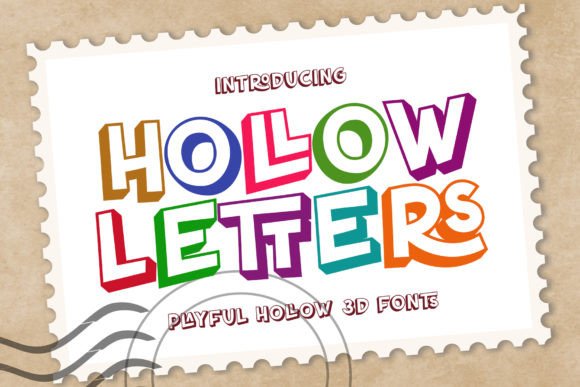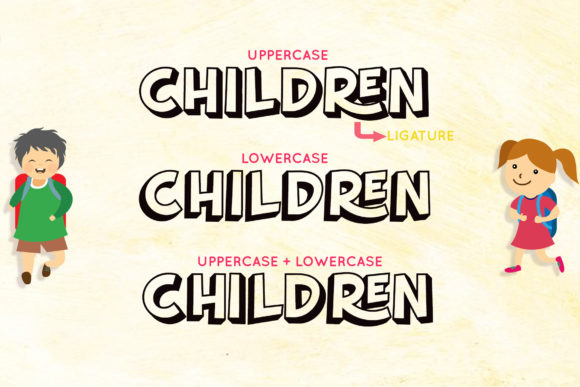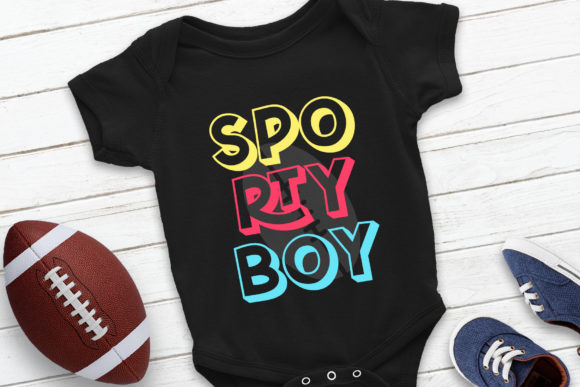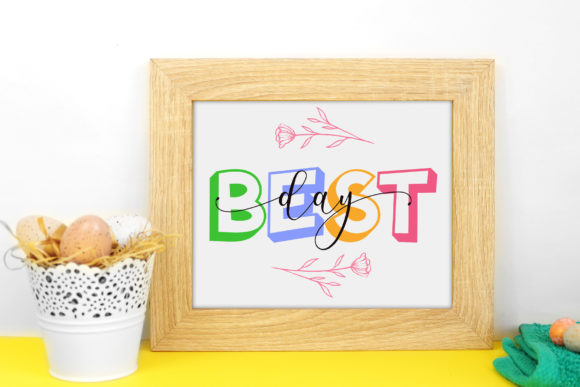
Hollow Letters Font
About the Hollow Letters Font
Step up your design game with Hollow Letters Font, a font that exudes confidence and style. Hollow Letters is a playful and fun outlined display font. It is PUA encoded which means you can access all glyphs and swashes with ease!  This font is perfect for children themed designs, especially when combined with bright colors.
Its playful, outlined forms make Hollow Letters ideal for headlines, logos, short text on packaging, and posters targeting a younger audience or conveying a lighthearted message. Avoid using it for body text or long paragraphs; its distinctive style is best suited for short, impactful statements. Legibility suffers at smaller sizes.
Consider pairing Hollow Letters with a clean sans-serif like Open Sans for a balanced contrast, or a rounded geometric sans-serif for a consistently friendly feel. For a more sophisticated touch, a classic serif like Garamond could provide refined counterpoint, grounding the playful energy of Hollow Letters.
The font’s overall personality is energetic and friendly, making it a strong choice for brands focused on children’s products, entertainment, or anything requiring a fun and approachable aesthetic.